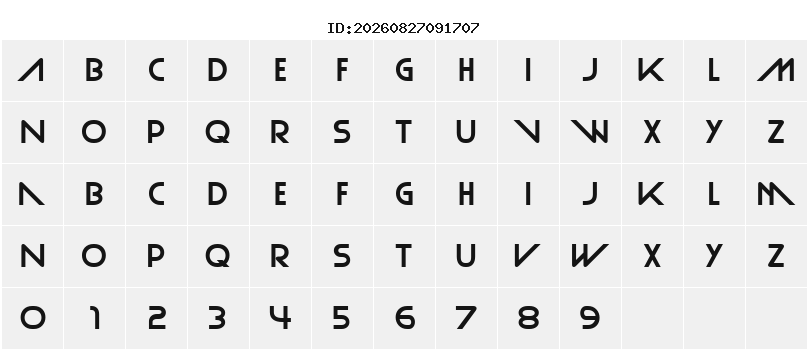
• Font Name: 392-CAI978
• Designer: Ray Larabie
• Manufacturer: Larabie Fonts
About 392-CAI978.ttf
392-CAI978.ttf is a modern, elegant sans-serif font designed for ultimate readability and visual harmony. Perfect for branding, headlines, web design, and print materials.